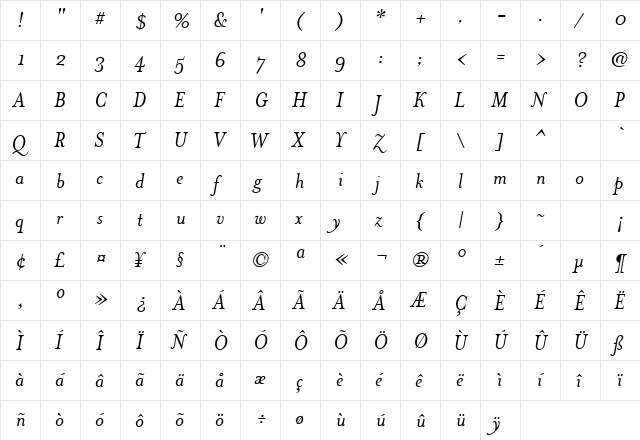
MrsEavesItalic Regular
Design Context for MrsEavesItalic Typeface
MrsEavesItalic takes a measured approach to typography — its balanced proportions and neutral character make it a reliable workhorse for both digital and print work. Its italic angle brings a sense of urgency and motion to the letterforms.
Pro Tip: Try MrsEavesItalic for annotation and caption copy alongside an upright companion — the contrast in angle creates a dynamic but ordered typographic system.